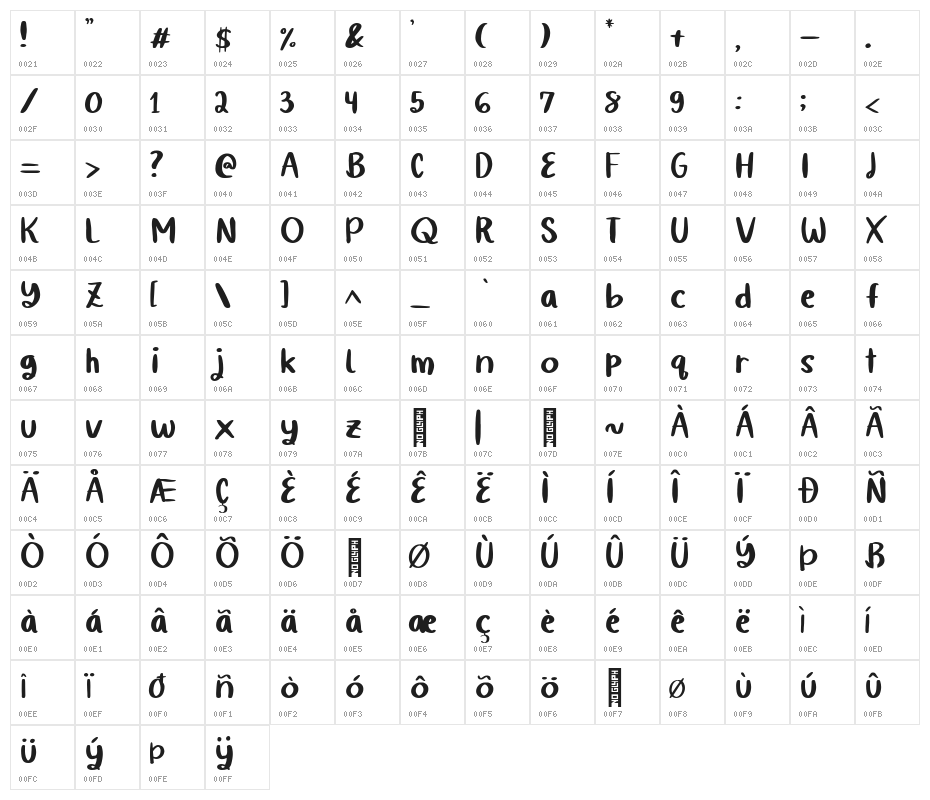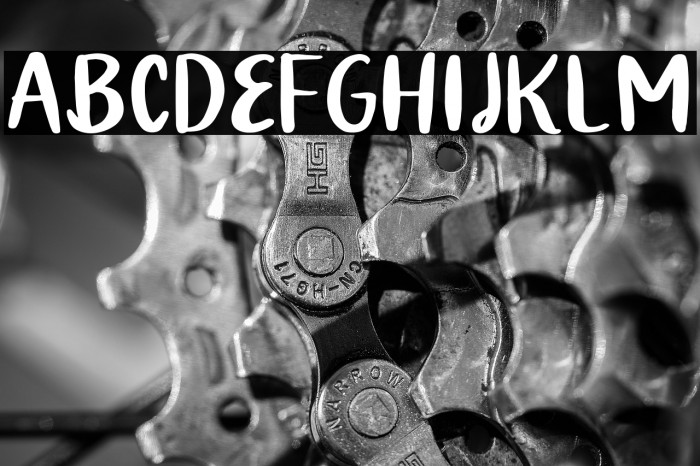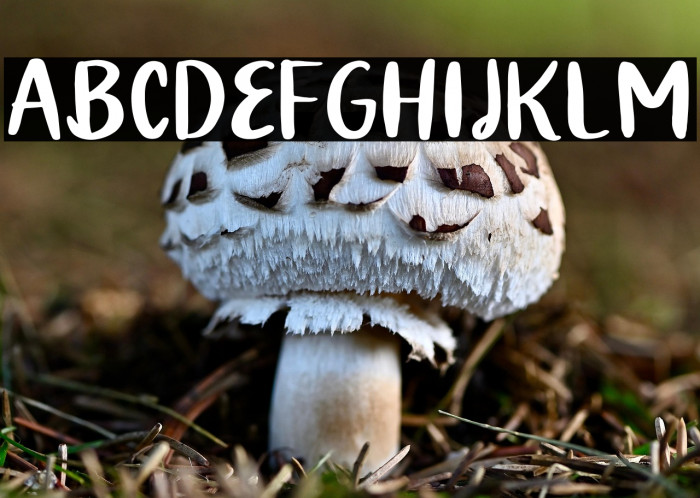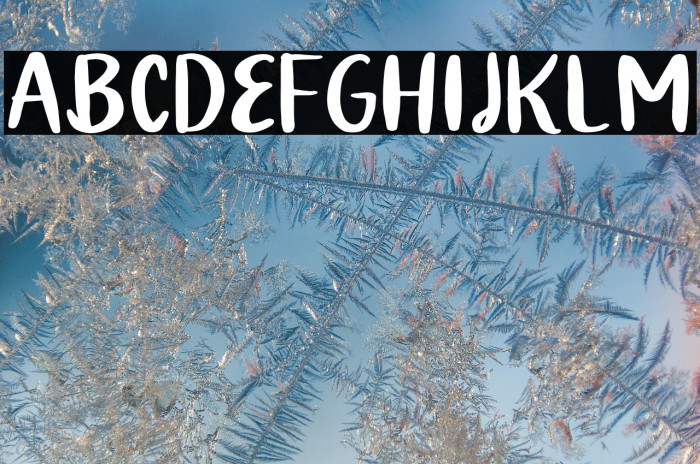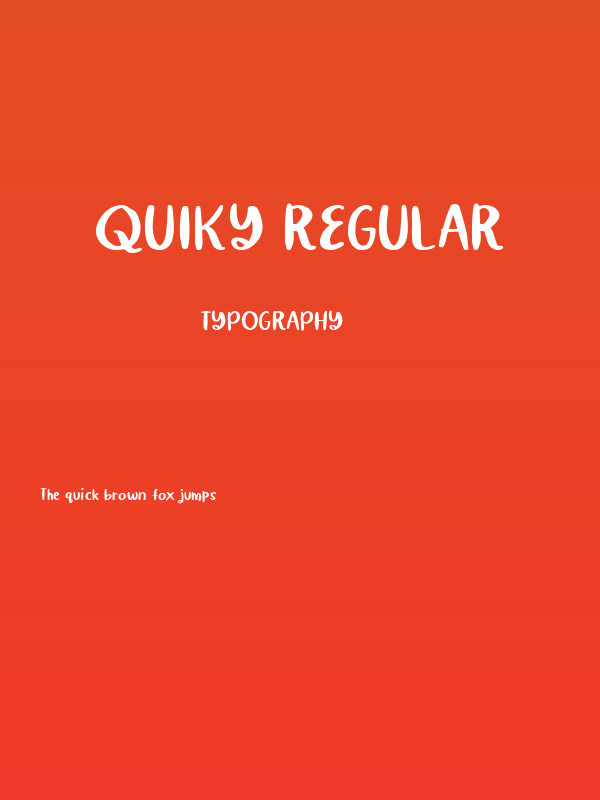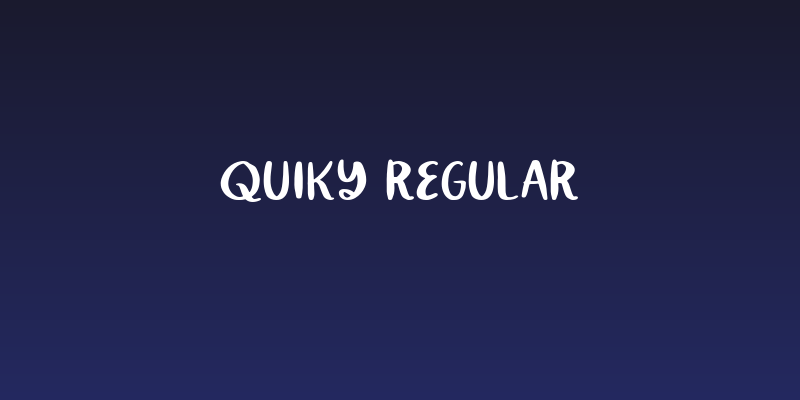
Quiky Regular Font
Quiky Regular Description
This playful and energetic font features bold, rounded characters with a handwritten style. The letters have a casual, friendly appearance, with a slight slant that adds to their dynamic feel. The strokes are thick and consistent, providing a strong presence on the page. The font includes both uppercase and lowercase letters, numerals, and a variety of special characters, making it versatile for different uses. Its informal style is perfect for projects that require a personal touch or a fun, approachable aesthetic.
| Proposed Projects | Ideal for children's books, greeting cards, playful branding, and social media graphics. |